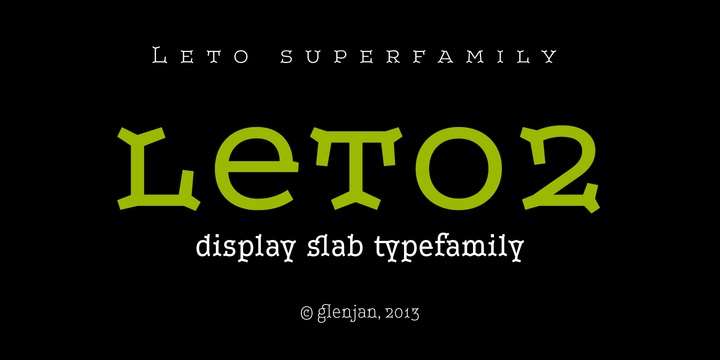
Leto Two Font
Leto Two Font is perfect for modern corporate branding, tech industry presentations, innovative startup identities, contemporary magazine layouts, professional portfolio designs, sleek product packaging, minimalist web interfaces, cutting-edge architectural signage, progressive annual reports, and sophisticated business communications.
What makes Leto Two Font so exciting is its remarkable evolution and refinement that represents the next generation of professional typography, featuring enhanced letterforms that deliver even greater clarity, versatility, and contemporary appeal than its predecessor. This advanced typeface embodies the perfect synthesis of modern design principles and timeless functionality, with characters that seem engineered for the future of digital communication while maintaining exceptional readability across all applications. The font's sophisticated design elements perfectly balance innovation with accessibility, creating an indispensable tool that communicates forward-thinking professionalism, technological advancement, and design excellence.
Leto Two Font comes in multiple font families including Regular, Bold, Light, Italic, Bold Italic, Ultra Light, Medium, and Extended variations. Each family member maintains the core contemporary characteristics while offering different sophistication levels and stylistic approaches to suit various professional design requirements.
The enhanced legibility in Leto Two Font makes it particularly suitable for global corporations and tech companies where clear communication across multiple languages and platforms is essential for international success. Its optimized letterforms maintain perfect readability at all sizes while preserving the contemporary elegance that appeals to modern professionals and sophisticated audiences worldwide.
Contemporary design professionals recognize how Leto Two Font transforms ordinary corporate communications into powerful statements of modern business excellence and technological sophistication. The typeface's comprehensive character set includes extensive international language support and advanced OpenType features that accommodate complex global branding requirements and multilingual applications.
For creative professionals serving Fortune 500 companies, technology leaders, and progressive organizations, Leto Two Font serves as the ultimate foundation for establishing memorable visual identities that capture the essential qualities of modern professionalism, technological innovation, and global business excellence that define successful contemporary enterprises.